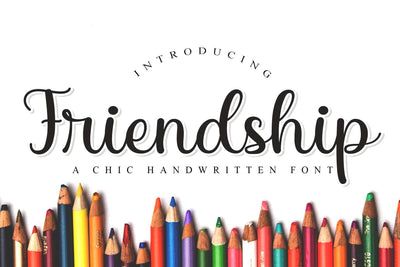
Friendship
Friendship is an elegant script font with a contemporary atmosphere and impeccable form. Not too thin and not too thick, balanced and varied, this font was designed to enhance the beauty of your projects.